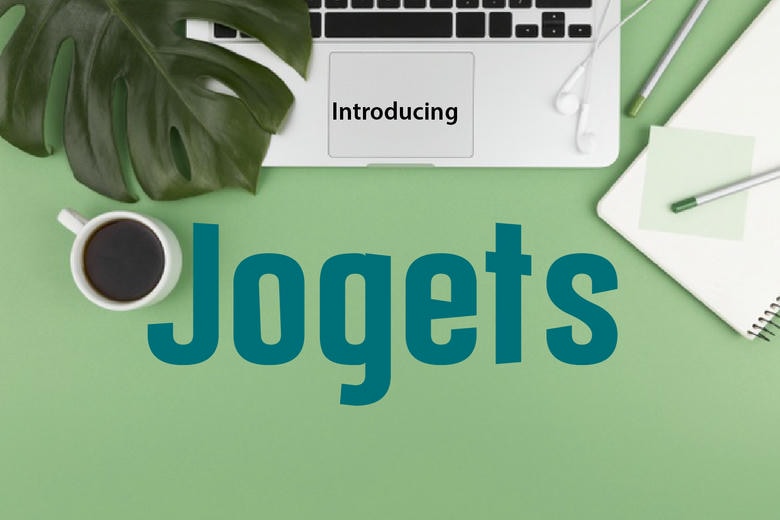
Jogets Font
Jogets is a bold sans-serif font. It is in a new style and varies in height at certain corners. Insert this thick lettered font in your designs and see how it brings them to life!
Jogets Sans Serif Font